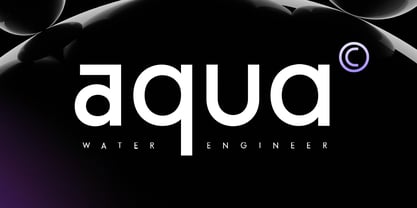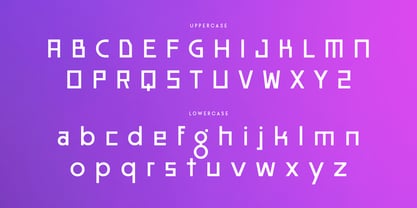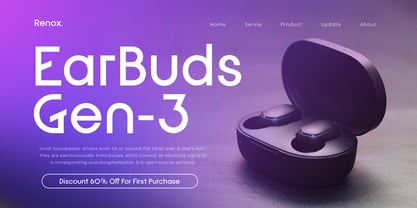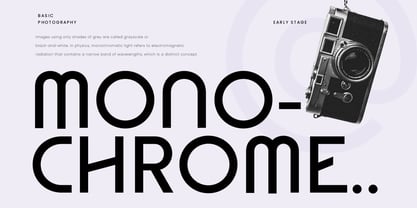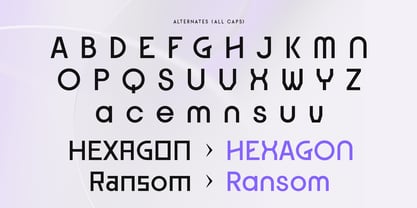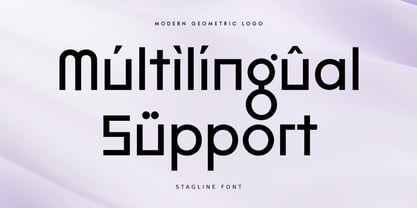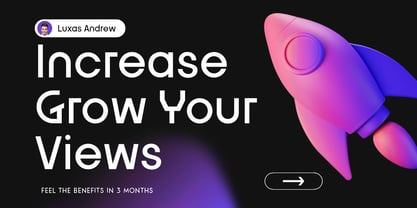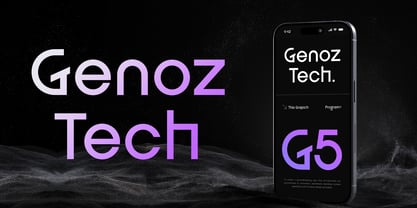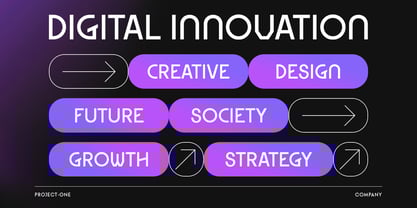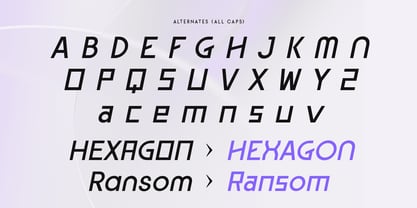
Stagline
by Sensatype Studio
The Stagline Font Family was designed by Zamroni Hamzah and published by Sensatype Studio. Stagline contains 2 styles and family package options.
Stagline - Logo Font
Stagline is a modern font designed for today’s technology-driven world. Its sleek, clean lines and sophisticated style make it ideal for tech logos and branding projects that require a contemporary touch. Crafted with versatility in mind, Stagline is perfect for a wide range of applications from logos and website designs to promotional materials. Its modern aesthetic ensures your brand stands out with a forward-thinking and professional look. Whether you’re creating a cutting-edge tech logo or updating your company’s branding, Stagline offers the perfect balance of style and readability for a polished, modern impression.
Stagline Logo Font Features:
• Unique Characters Ready
• Punctuation, Number, and Symbol
• Uppercase and Lowercase
• Multilingual Support
• Opentype Features